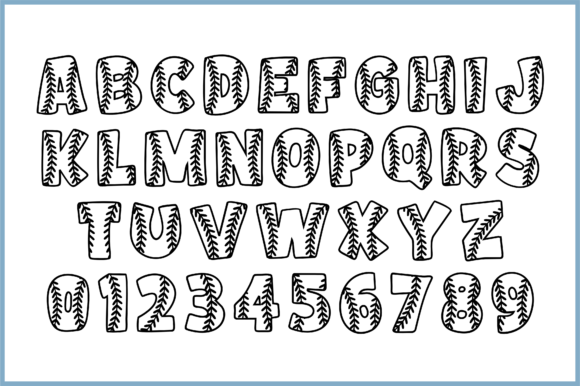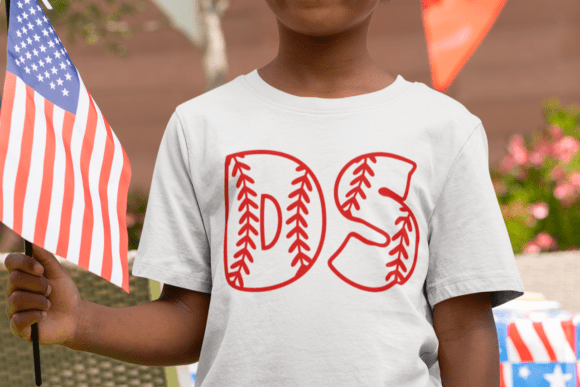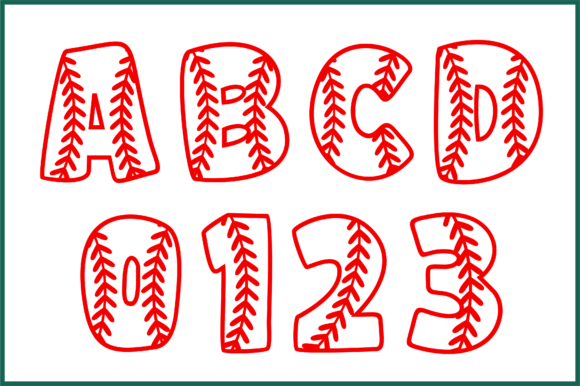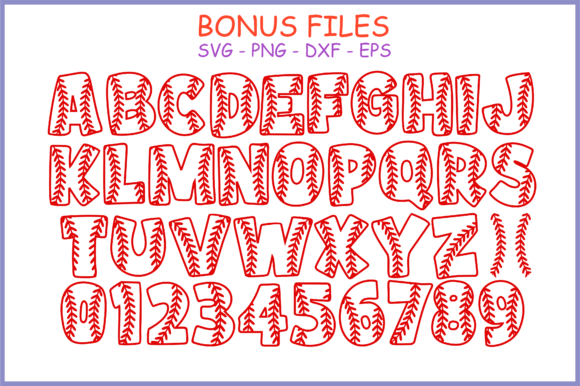
Introduction to Baseball Bubble Font
Do you remember the rush of excitement when you first picked up a crayon and created your own baseball stadium? The thrill of bringing your imagination to life is a feeling many designers and parents can relate to, especially when it comes to creating fun and engaging content for kids. One design resource that’s sure to hit a home run with young fans is the Baseball Bubble Font.
This playful font is more than just a creative project – it’s a high-quality design element that can bring a cheerful, athletic vibe to any layout. With its bold colors and sporty flair, the Baseball Bubble Font is perfect for designers looking to add energetic character and decorative charm to their designs. Whether you’re working on a project with a transparent background or need a fun font for a school-themed design, this font is sure to be a valuable addition to your design library.
Key Features of Baseball Bubble Font
- Unique, hand-drawn design ideal for creative projects and sports-themed graphics.
- High-quality font with transparent background, perfect for use as a design resource.
- Each character is meticulously crafted with attention to detail, ensuring a consistent and professional look.
- Perfect for baseball-themed designs, party invitations, and other sports-related creative projects.
Honest Review: Baseball Bubble Font
I recently stumbled upon the Baseball Bubble Font, and I’m excited to share my thoughts on this design resource. As a designer, I appreciate high-quality fonts that can elevate a creative project.
- ✨ Unique and playful design that captures the spirit of baseball
- ✨ High-quality vector graphics make it suitable for various print and digital applications
- ✨ Transparent background, making it easy to customize and combine with other elements
- ⚠️ Limited font styles and variations, which might not be ideal for complex design projects
- ⚠️ Not suitable for smaller text sizes due to its rounded and bubbly design
Overall, I think the Baseball Bubble Font is a great addition to any designer’s toolkit, especially for creative projects that require a fun and playful touch. With its high quality and transparent background, it’s a free download that’s definitely worth checking out.
The Baseball Bubble Font is a unique and eye-catching design resource that can add a playful touch to any creative project. With its transparent background and high-quality design, it’s perfect for use in a variety of applications.
The Baseball Bubble Font is perfect for use in a variety of creative projects, including:
- Sports-themed designs
- Children’s party invitations and decorations
- Custom logos and branding
- Graphic designs for social media and advertising
To get the most out of the Baseball Bubble Font, be sure to:
- Use it in conjunction with other high-quality design elements
- Experiment with different font sizes and colors
- Combine it with a transparent background for a unique look